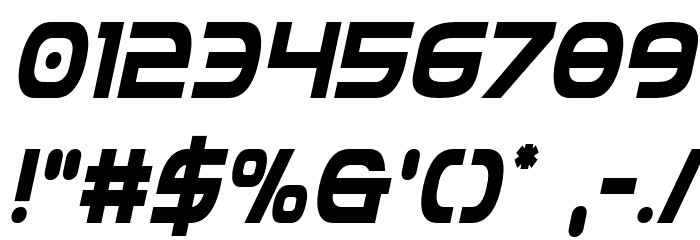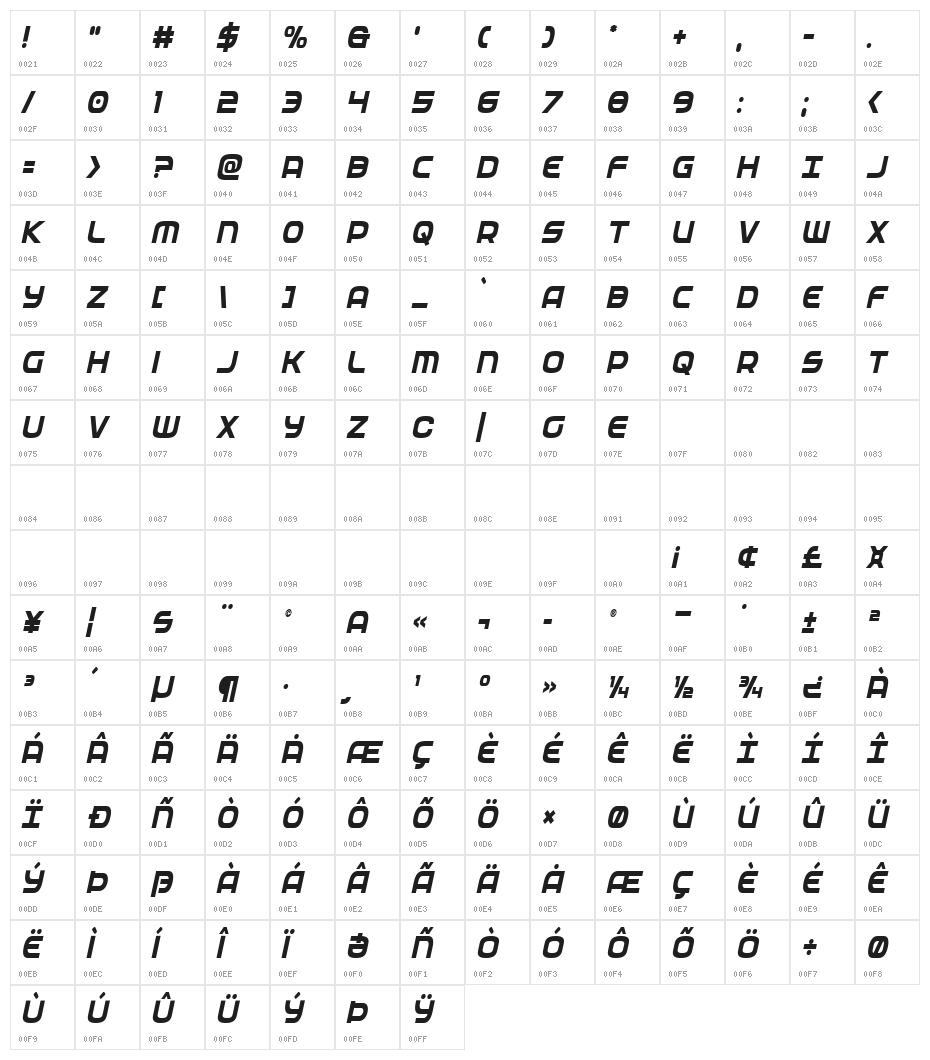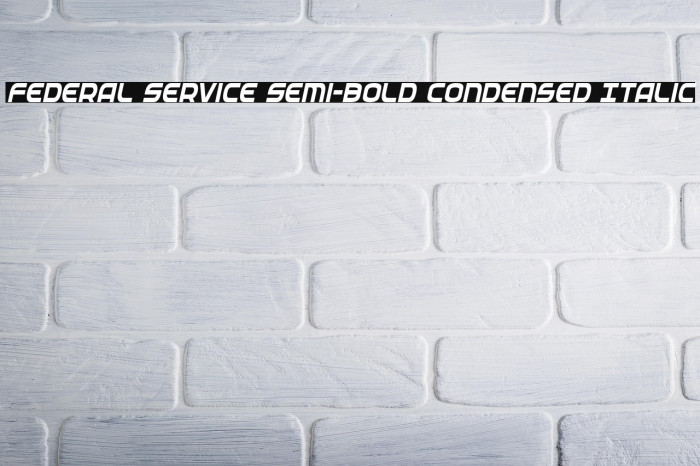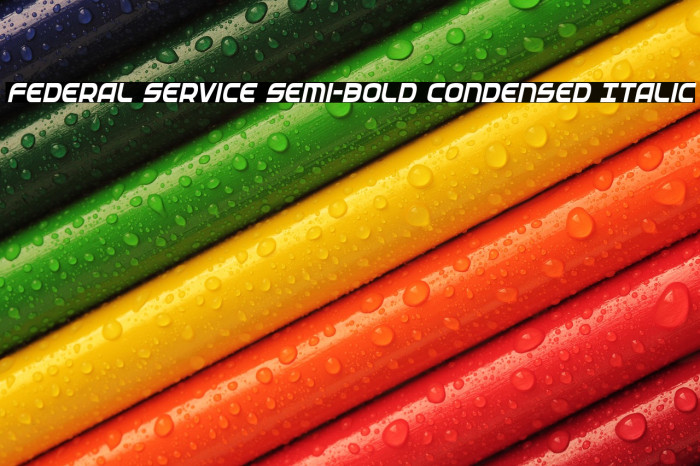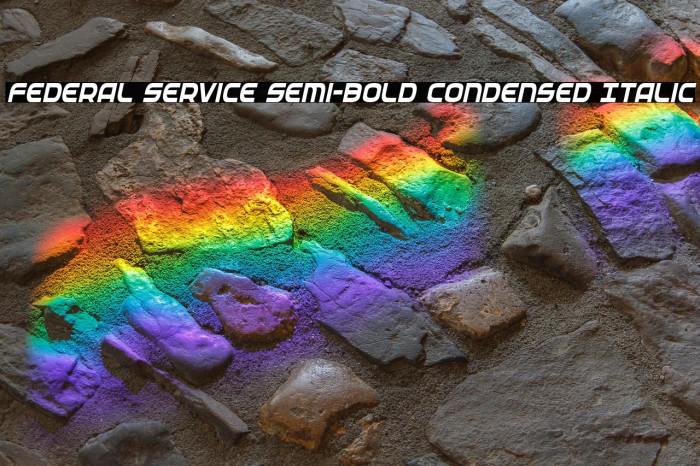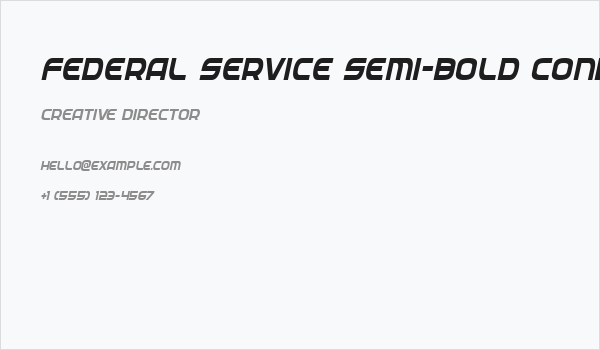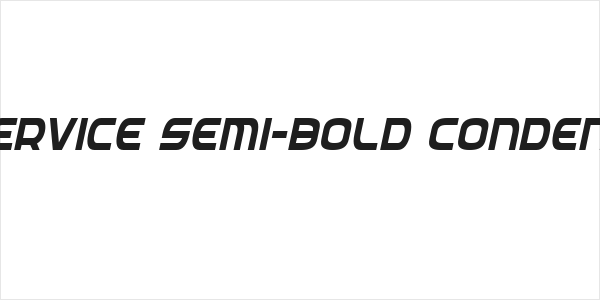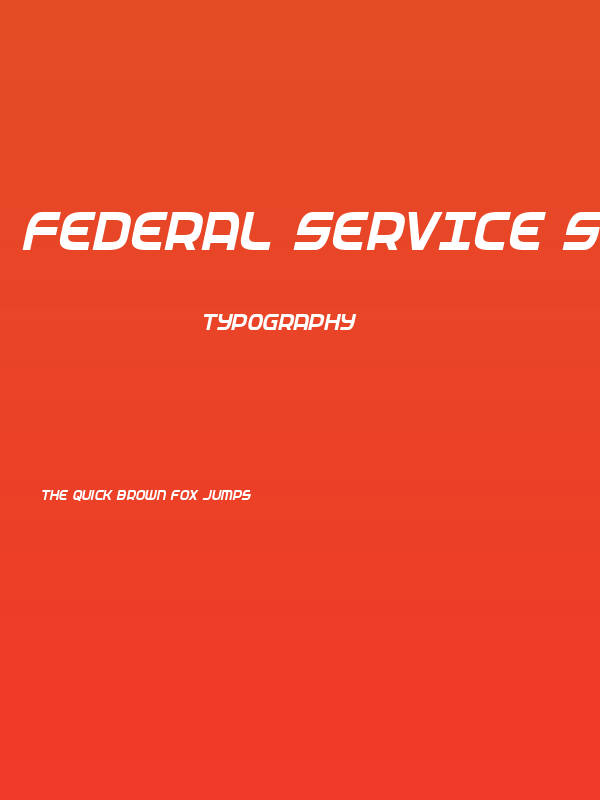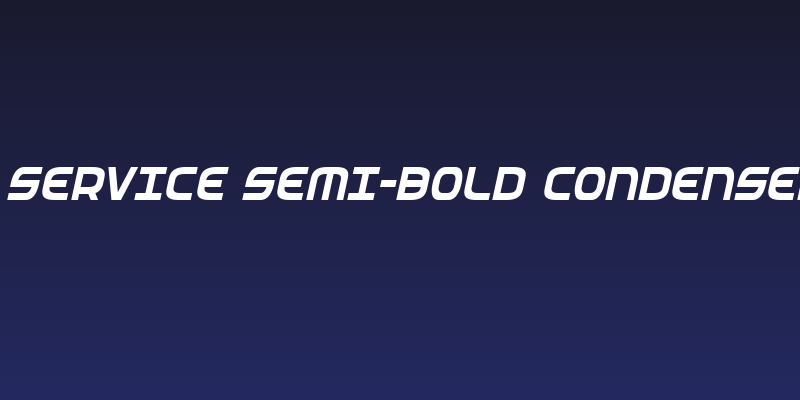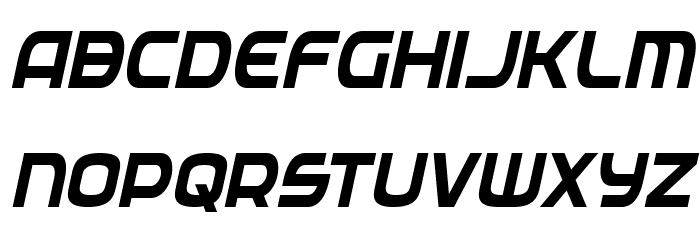
Federal Service Semi-Bold Condensed Italic Font
Federal Service Semi-Bold Condensed Italic Description
This font exhibits a modern and dynamic style with a semi-bold weight and condensed width. The italic slant adds a sense of motion and urgency, making it suitable for attention-grabbing designs. The characters are well-defined with a slight curvature, giving them a sleek and aerodynamic appearance. The uppercase letters are bold and prominent, while the lowercase letters maintain a consistent style that complements the overall design. The numerals are clear and easily distinguishable, and the special characters are crafted to match the font's aesthetic. This font is versatile and can be used in various contexts where a contemporary and impactful look is desired.
| Proposed Projects | Ideal for sports branding, automotive advertisements, tech company logos, and modern web design. |